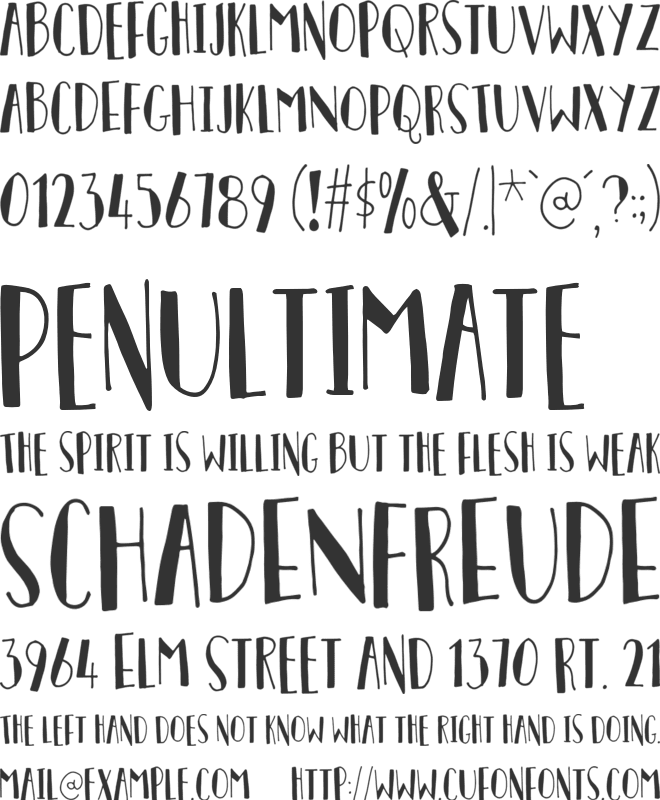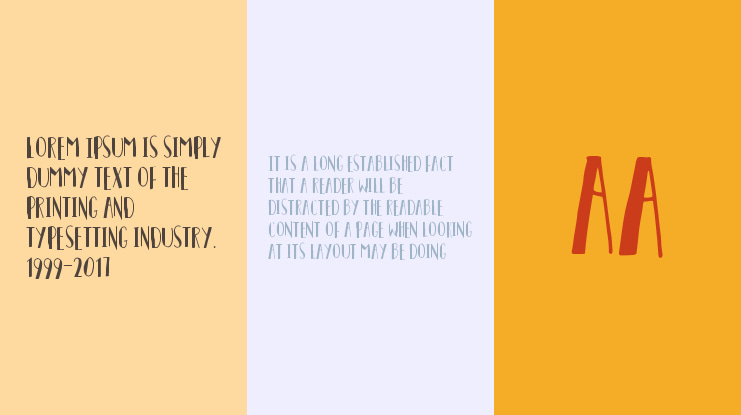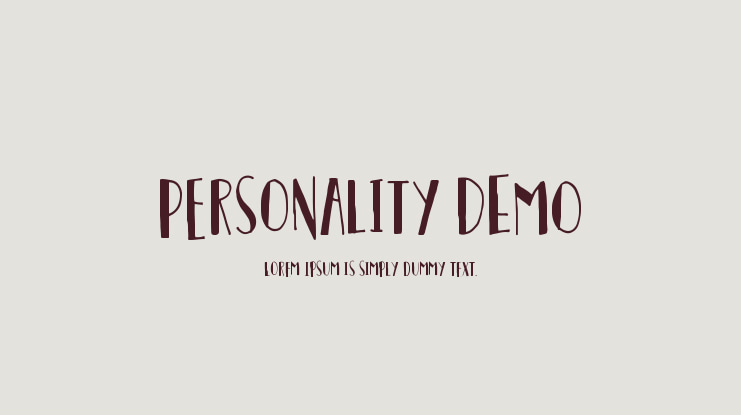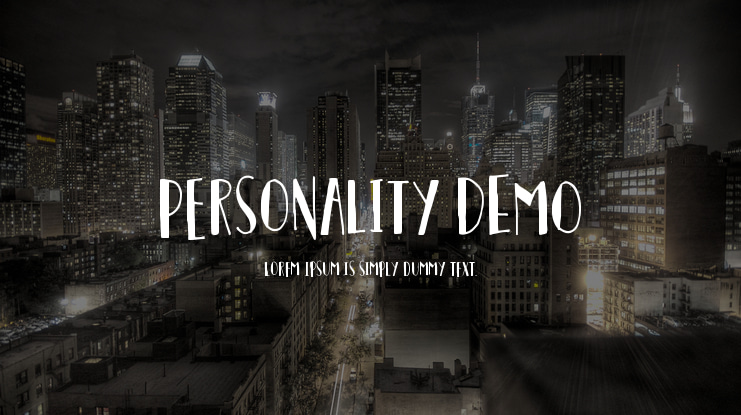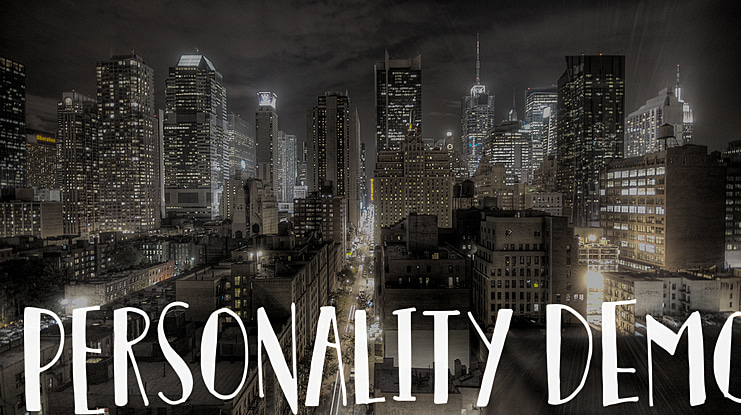
Personality DEMO Font
Jakob Fischer / pizzadude.dk
Personality is my art deco inspired all caps font.
Made with a slightly inky pen, and comes with 7 different versions of each letter. And of course multiple language support!